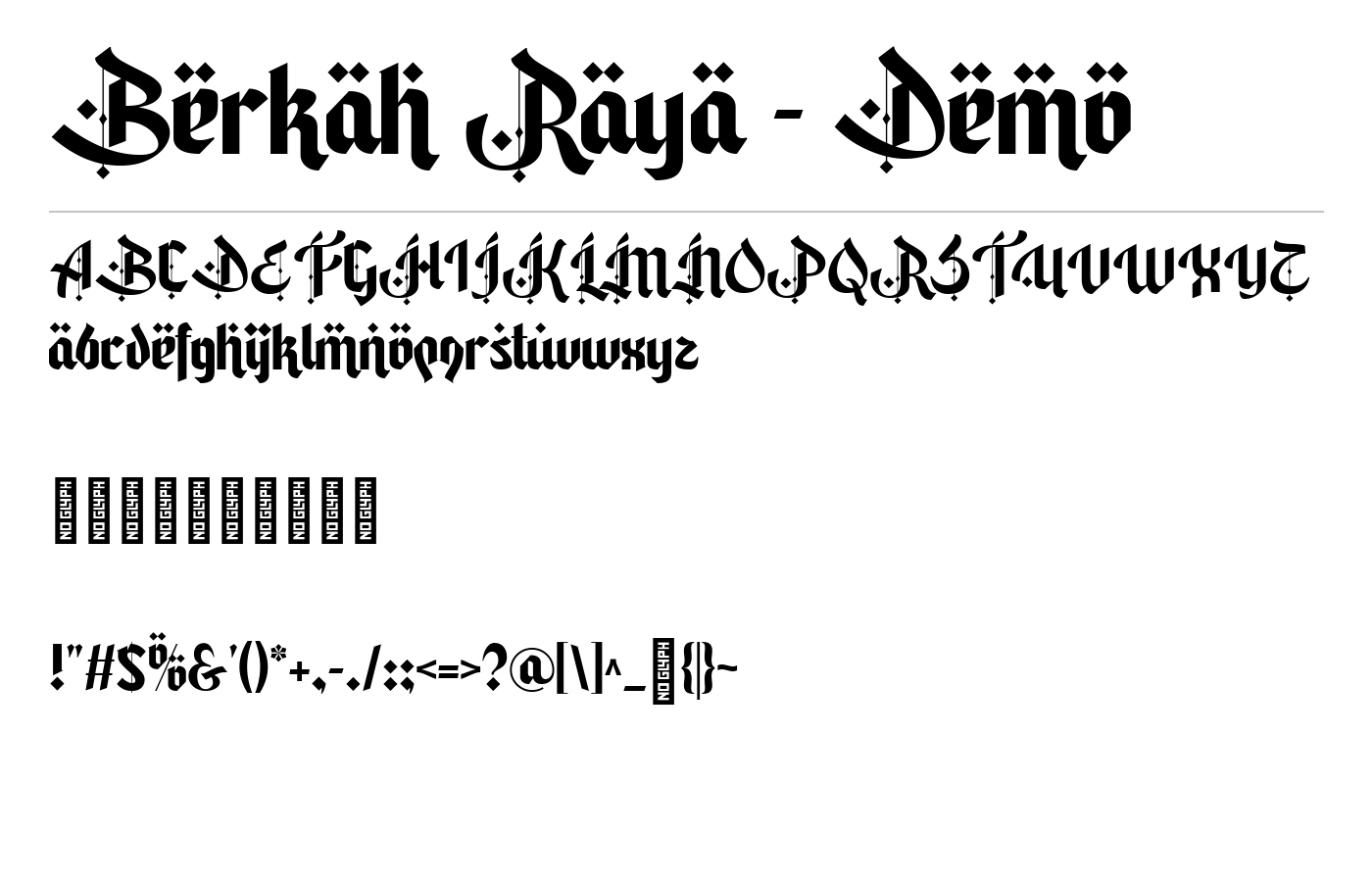
Berkah Raya is a bold, blackletter-inspired serif font with a strong gothic character and sharp, angular strokes. Its high contrast and decorative dot elements give it a dramatic, vintage feel, ideal for striking headlines, logos, or branding that seeks a distinctive, old-world charm combined with modern flair. This font works best in display settings where its unique style can shine and captivate attention.
Berkah Raya - Demo Font
About Berkah Raya - Demo Font
| Designer | Sigit Dwipa Raharjo |